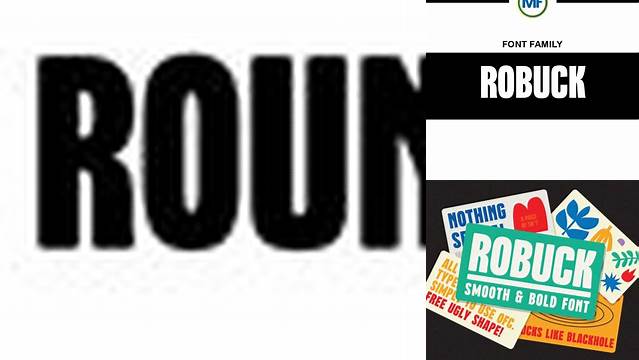
Hey guys! If you're on the hunt for a font that's both stylish and versatile, you've landed in the right place. We're diving deep into the world of the Robuck Rounded Font, a fantastic choice for all sorts of design projects. And the best part? You can grab a free download! This article is your ultimate guide to everything Robuck, covering its features, uses, and, of course, how to get your hands on it. Let's get started, shall we?
Robuck Rounded Font: A Closer Look
Robuck Rounded Font is a modern, clean, and friendly typeface that's perfect for a wide range of design applications. Its rounded edges give it a soft and approachable feel, making it ideal for projects that aim to be welcoming and easy on the eyes. Whether you're designing a website, creating marketing materials, or working on a personal project, Robuck offers a versatile and visually appealing solution. The font's design is meticulously crafted, ensuring excellent readability at various sizes and on different media, from print to digital displays. It's designed to be both functional and aesthetically pleasing, ensuring your text not only conveys your message but also looks great doing it. Robuck's designers clearly understood the importance of balance and clarity, creating a typeface that's both contemporary and timeless. The rounded terminals add a touch of playfulness without sacrificing professionalism, making it a great choice for businesses and individuals alike. Furthermore, the font family often includes various weights and styles, providing designers with the flexibility to create diverse and cohesive visual narratives. This versatility allows for a consistent branding experience across multiple platforms and applications. The attention to detail in its design is evident in the harmonious curves and consistent stroke weights, providing a visual experience that is both engaging and easy on the eyes. Overall, Robuck Rounded Font is a superb choice for anyone looking to add a touch of modern elegance and warmth to their design projects. Its accessibility through free downloads makes it an attractive option for both professional designers and hobbyists, ensuring that high-quality typography is within reach for everyone. Plus, the licensing typically allows for both personal and commercial use, providing the freedom to use it in a wide range of projects without the limitations often associated with premium fonts. Remember, picking the right font can make or break a design, and Robuck Rounded Font is a solid choice for making a positive impact.
Key Features of Robuck Rounded Font
Let's break down what makes Robuck Rounded Font so special. Its rounded terminals, as mentioned earlier, contribute to its friendly and approachable aesthetic. These soft edges soften the overall appearance of the text, making it less harsh and more inviting. Besides its visual appeal, it often boasts excellent readability, meaning it's easy to read in various sizes, which is crucial for any design. The font's versatility is another major plus, making it suitable for a wide array of projects, from headlines and body text to logos and branding materials. Moreover, the font typically includes various weights and styles, allowing designers to create dynamic layouts and highlight specific text elements effectively. Each weight offers a different visual character, giving you the ability to add emphasis or create contrast within your designs. The font's modern design is also a standout feature, keeping up with the latest design trends while still maintaining timeless appeal. This balance ensures that the font stays relevant and effective in the ever-evolving world of design. Plus, the font's accessibility, through free downloads, makes it an amazing option for a wide range of users, removing barriers to access high-quality design resources. Finally, the font's suitability for both personal and commercial projects offers flexibility, allowing you to use it in diverse applications without any constraints. This level of flexibility and the ease of use of the font make it a go-to choice for both professional and amateur designers.
Why Choose Robuck Rounded Font?
Why pick Robuck Rounded Font over other fonts? The simple answer is: it's awesome! It's a great choice for projects aiming to convey a sense of warmth, approachability, and modernity. Its rounded corners are inherently friendly, making it perfect for brands that want to connect with their audience on a personal level. Also, it's very versatile, as we've said. You can use it in a variety of contexts, including websites, logos, marketing materials, and even app designs. The font's readability is top-notch, ensuring that your message gets across clearly and effectively. The variety of weights and styles often included gives you the creative freedom to play with emphasis and create engaging layouts. The font's modern design fits seamlessly into current design trends, keeping your projects looking fresh and contemporary. The fact that it's often available for free download is a major advantage, particularly for designers on a budget. It is also suitable for both personal and commercial use, meaning you can use it for your own projects or for client work. By choosing Robuck Rounded Font, you are investing in a design asset that is both effective and adaptable. It is a smart and strategic decision for designers looking to enhance their design projects.